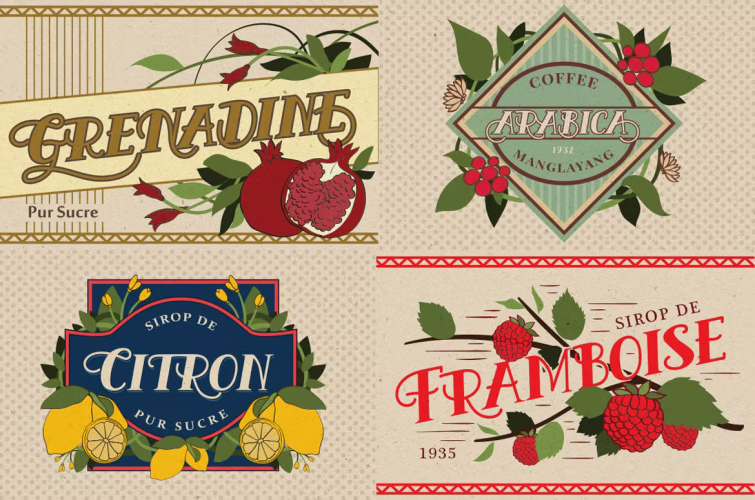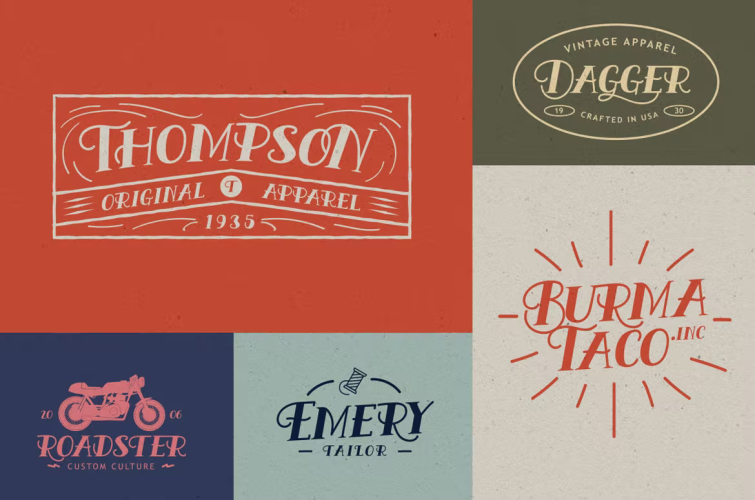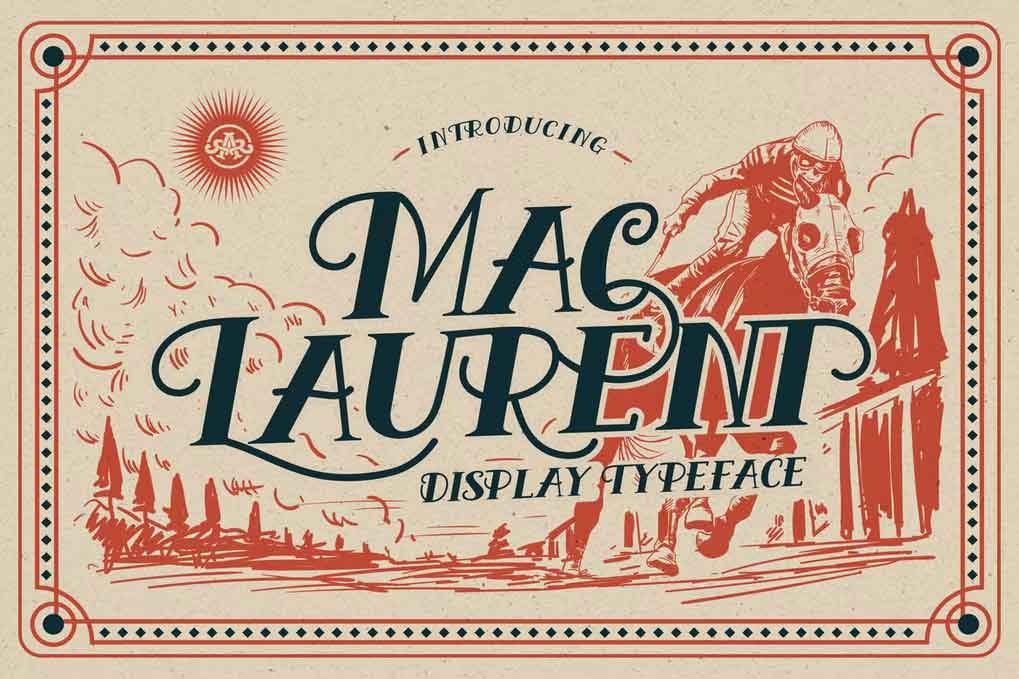
MacLaurent Font
Introducing MacLaurent well crafted typeface inspired by vintage typography. The typeface Ideal for : Logo, quotes, invitations, signage, poster, greeting cards, packaging, headers, printed quotes, cover album, etc. Mac Laurent came with open type features such stylistic alternates, stylistic sets, & ligatures.
For the best layout try mixing up both upper and lowercase characters.
Where MacLaurent Font works best
Reports, white papers and book interiors hold the eye longer when the text face has real serifs; MacLaurent Font keeps that rhythm without looking old-fashioned.
Food, spirits and cosmetics brands lean on serif wordmarks to suggest age and care. MacLaurent Font gives that signal at wordmark size.
Set MacLaurent Font for the body of an award or a diploma and keep the recipient name in a script; the pairing is what makes a document feel official.
It sits in the Serif Fonts group and reads as branding, music, packaging, serif. That makes it a candidate wherever those qualities help: headings, packaging, social graphics and brand work. Set it at the size you plan to use before deciding.